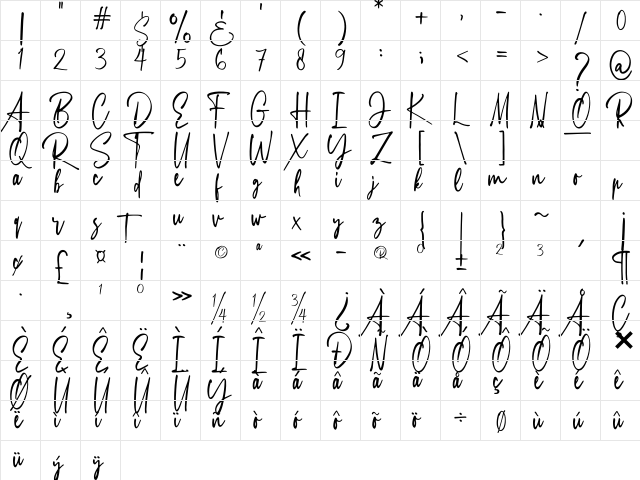
Silmastin Regular
| Foundry | Hanzel Space |
| Designer | Hanief Farandi |
Design Context for Silmastin Typeface
Silmastin is a composed and adaptable typeface that performs quietly and consistently across a wide range of design contexts.